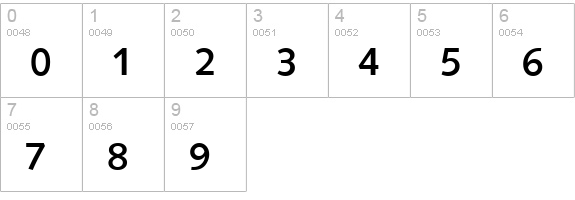
SaxonySerial-Medium-Regular is a balanced, medium-weight variant in the SaxonySerial typeface family \xE2\x80\x94 well suited to sub-headlines, navigation, and balanced editorial work.
SaxonySerial-Medium-Regular is a stylish and versatile font that exudes elegance and sophistication. With its clean lines and classic design, this font is perfect for a wide range of design projects, from branding to editorial and everything in between. The medium weight of this font strikes the perfect balance between readability and impact, making it a versatile choice for both headings and body text. And the best part? SaxonySerial-Medium-Regular is available for free download at FontsMarket.com! This means that you can add this beautiful font to your collection without spending a dime. Don't miss out on the opportunity to elevate your designs with the timeless charm of SaxonySerial-Medium-Regular. Download it now and let your creativity soar!